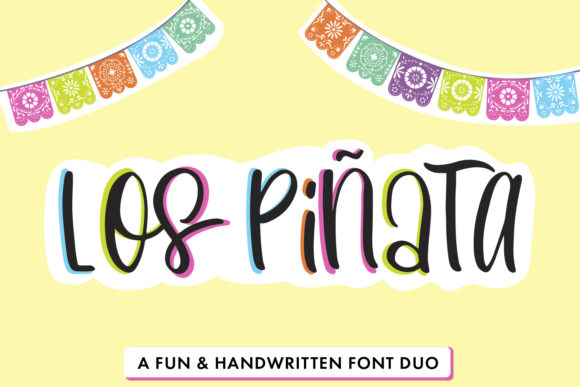
Introducing Los Pinata, the ultimate handwritten font, a masterpiece crafted by freelingdesignhouse, designed to create cheerful and charming designs that captivate the hearts of your audience. Immerse yourself in its enchanting world of whimsical strokes and playful curves, where every letter dances with personality.
With Los Pinata's captivating style, you'll effortlessly evoke a nostalgic charm in your designs, resonating with a touch of timeless elegance. Its meticulously crafted characters possess an irresistible allure, inviting your readers to embark on an extraordinary journey of visual delight.
Los Pinata's versatility shines through any project, whether it's adding a personal touch to your handwritten letters, crafting eye-catching logos that exude character, or designing whimsical posters that demand attention. Its friendly and welcoming nature makes it a perfect choice for creating invitations, greeting cards, and social media graphics that radiate warmth and charm.
Step into a world where creativity knows no bounds, where Los Pinata's enchanting strokes transform your designs into captivating masterpieces. Its ability to effortlessly infuse joy and delight into any project makes it a must-have font for designers seeking to leave a lasting impression.